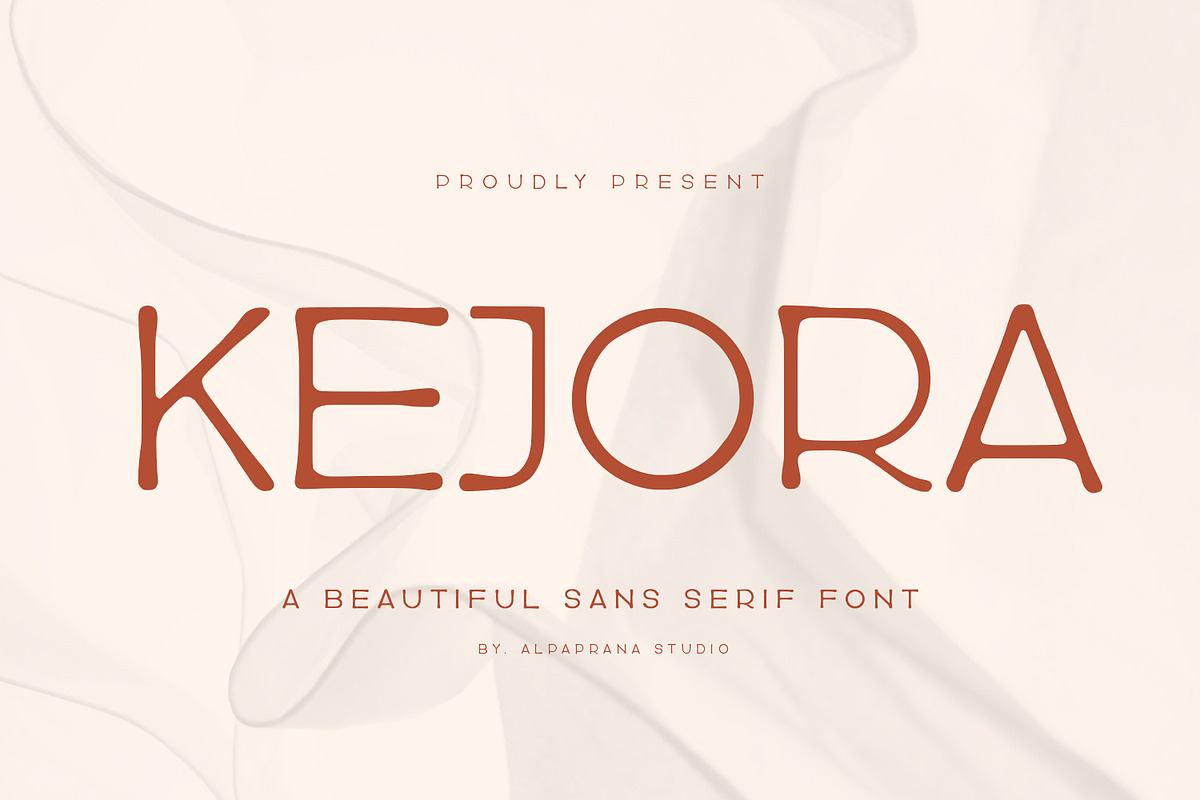
Kejora - Sans Serif Free Download
Enhance your designs with Kejora – Sans Serif Font Free Download, a sleek and minimal typeface perfect for modern and professional projects. You need to purchase this font for commercial use. However, you can try it in personal or non-commercial work using Kejora – Sans Serif Font Free Download. With its clean lines, balanced proportions, and excellent legibility, Kejora is ideal for branding, editorial design, web content, and presentations. Designers love its contemporary elegance and versatile application. Download Kejora – Sans Serif Font Free Download today and bring a fresh, polished look to your creative projects.